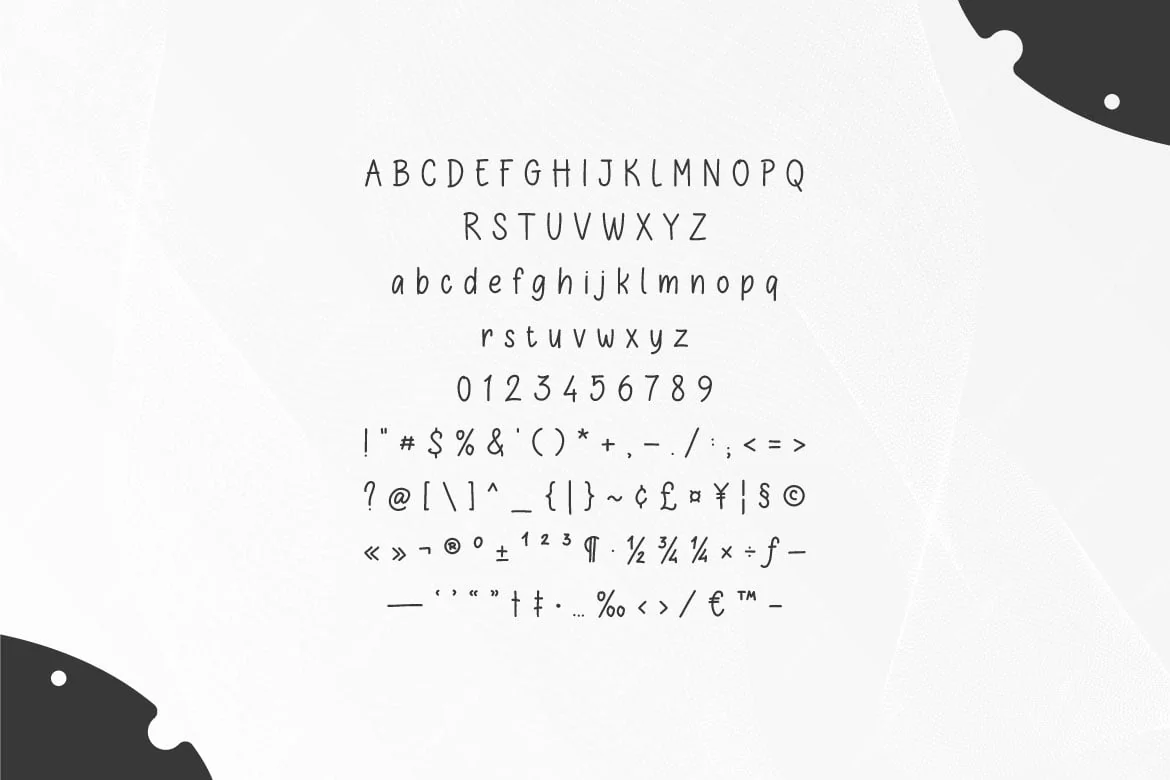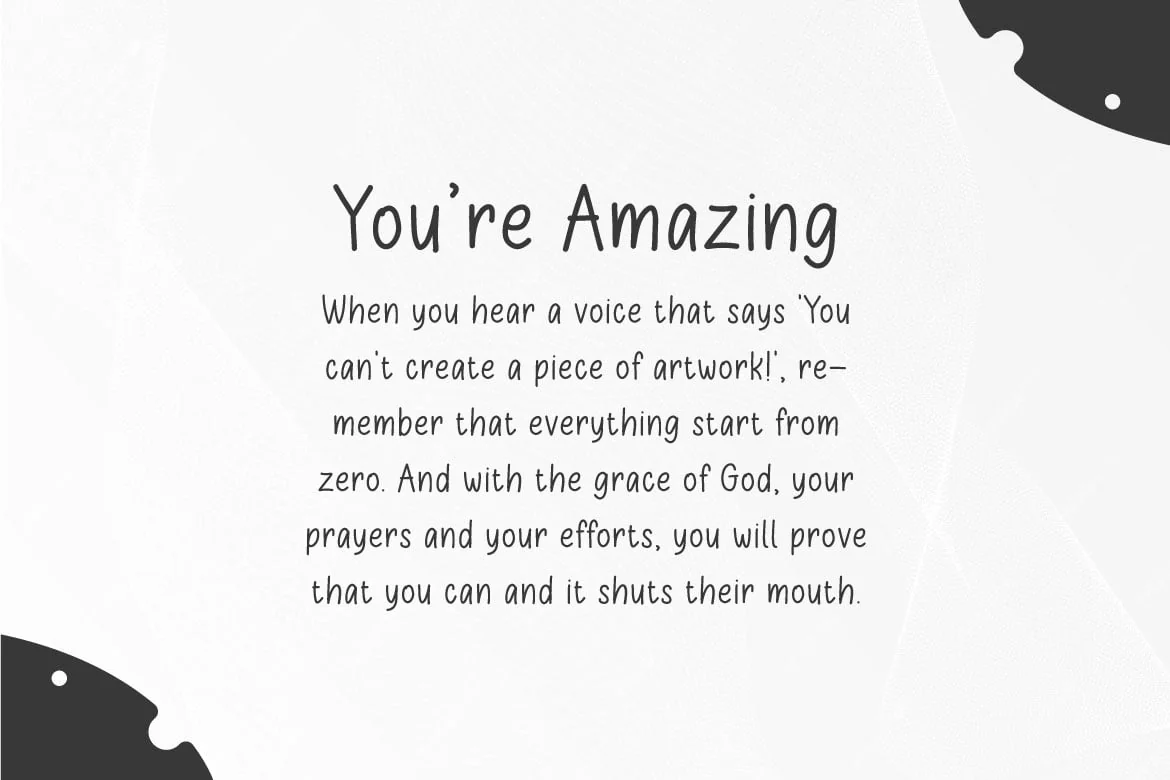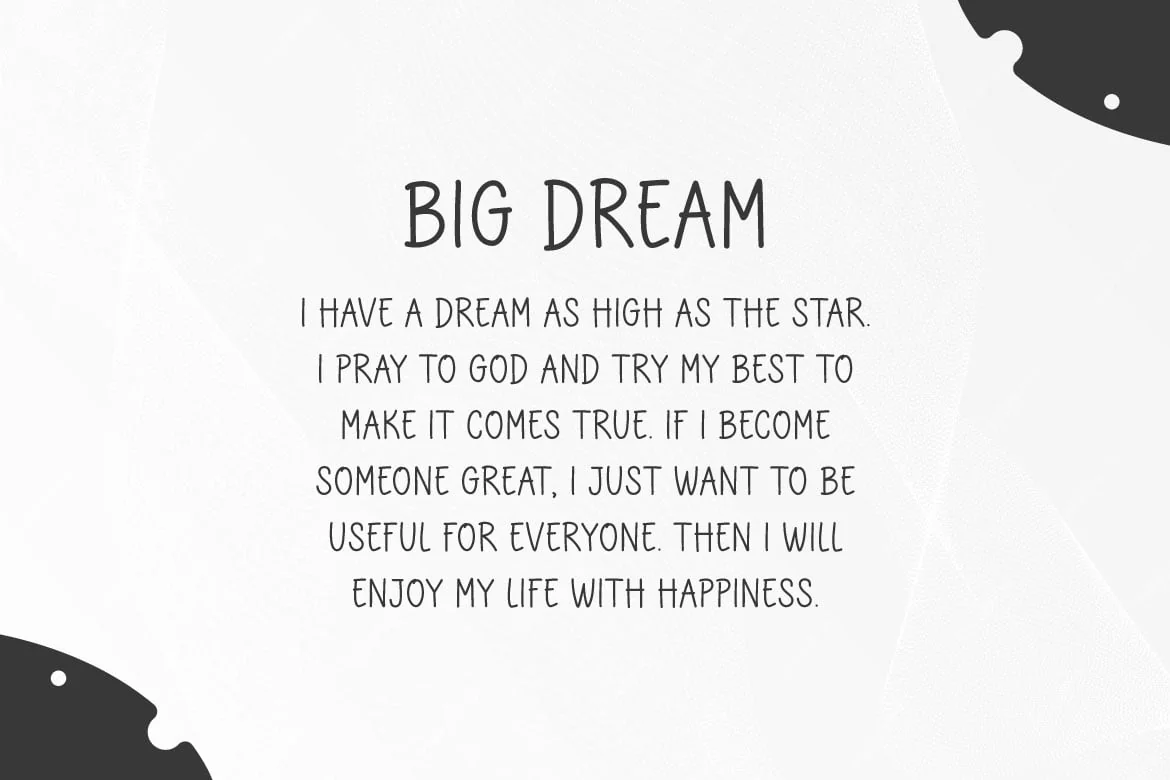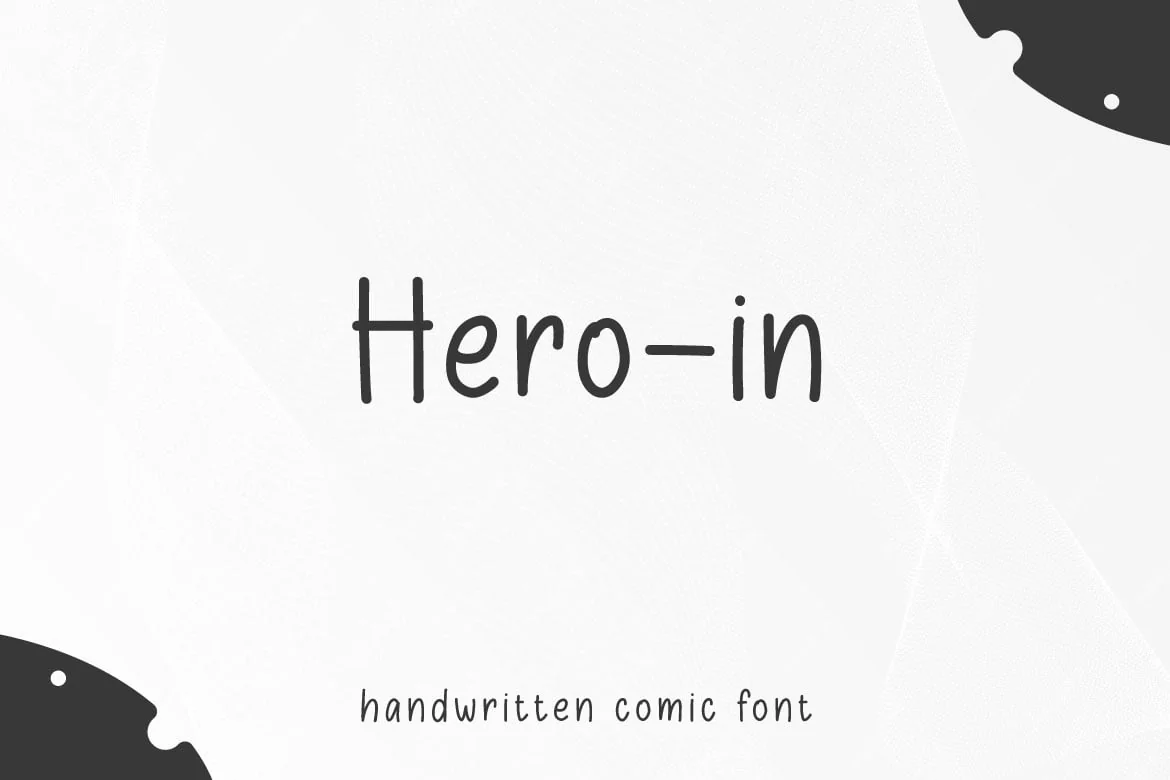
Hero In – Handwritten Comic Font
Hello! Hero In is a handwritten comic font.
Hero In can be used in any works such as comic book, poster, school, flyer, book title, advertisement, social media content, logo and many more.